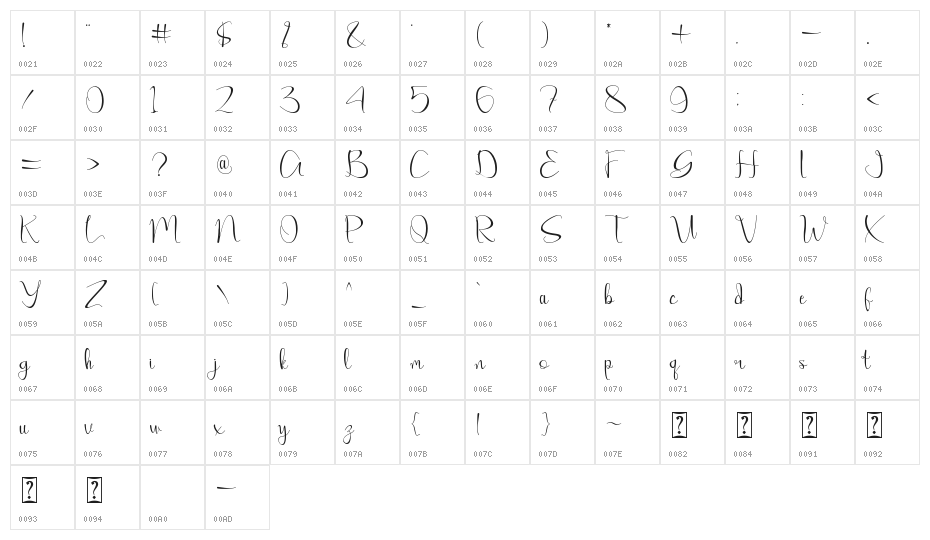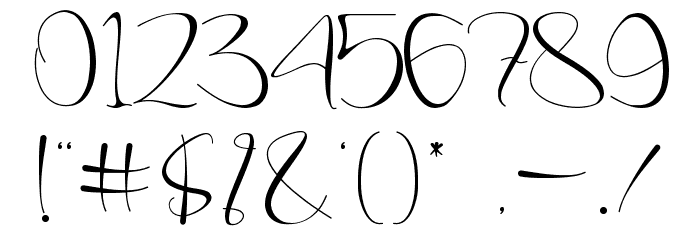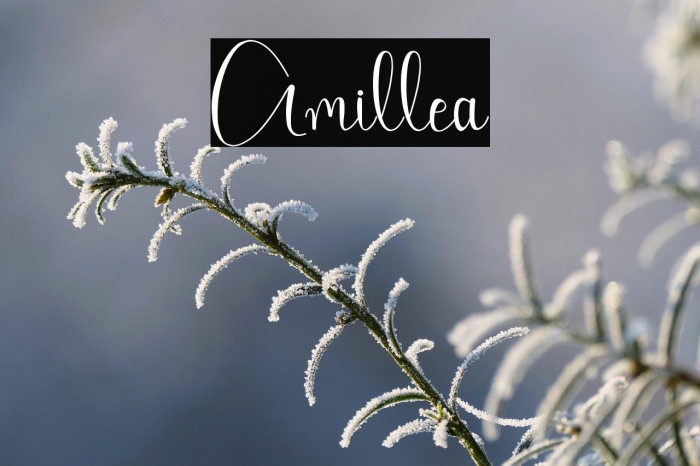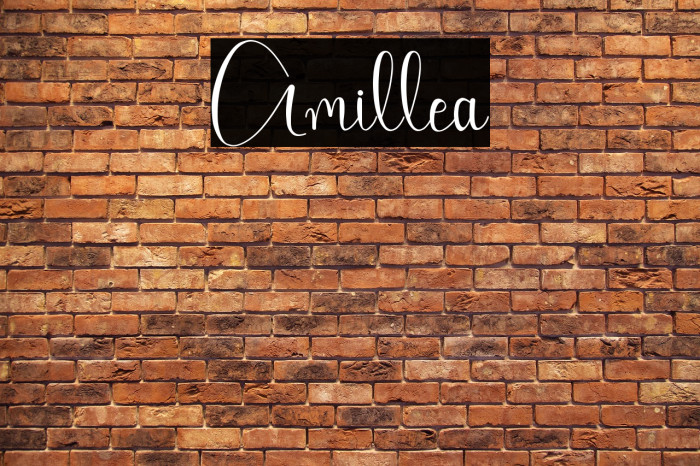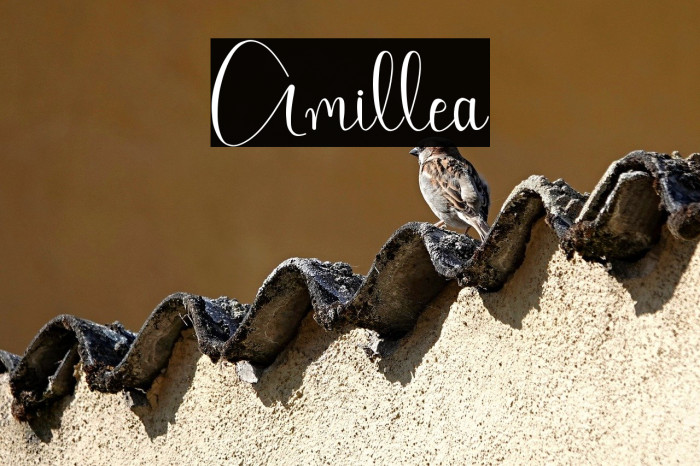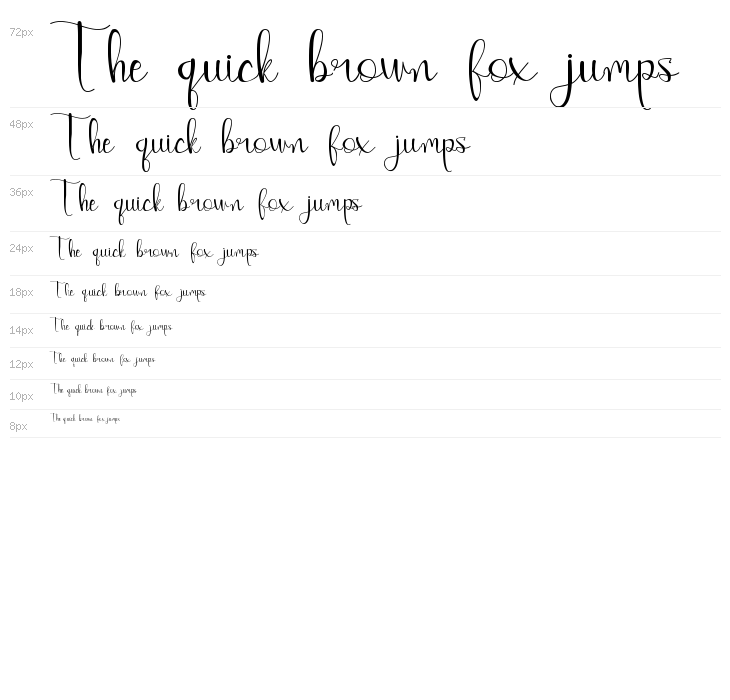
Amillea Font
Amillea Description
This font features an elegant, flowing script style with a modern twist. The uppercase letters are characterized by their sweeping curves and delicate loops, giving a sense of movement and grace. The lowercase letters maintain a consistent style, with elongated ascenders and descenders that add to the font's overall fluidity. Numbers are crafted with the same attention to detail, ensuring a cohesive look across all characters. Special characters are thoughtfully designed to complement the alphabet, making this font versatile for various applications. The overall appearance is sophisticated yet approachable, perfect for adding a touch of elegance to any project.
| Proposed Projects | Ideal for wedding invitations, branding, greeting cards, and elegant packaging. |